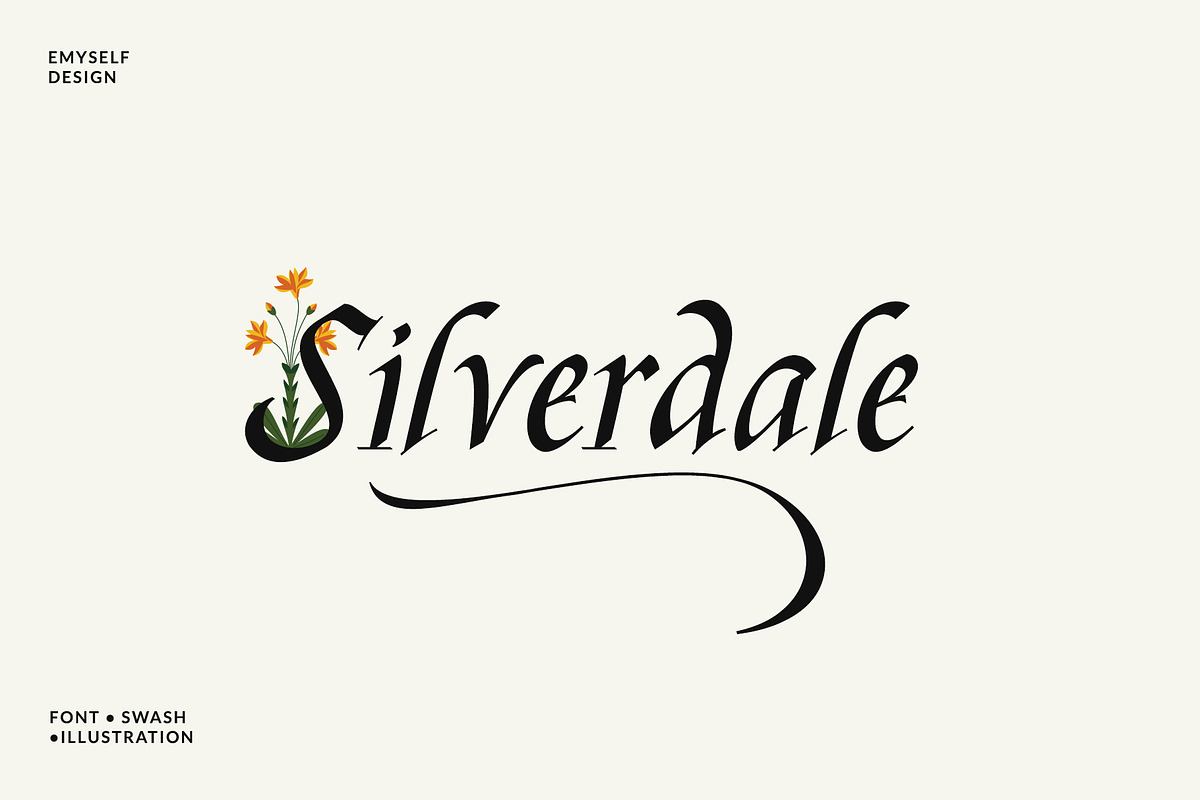
Silverdale Typeface Free Download
Silverdale Typeface Free Download is a bold, vintage-inspired serif font that blends classic character with modern versatility. Please note: you must purchase this font for commercial use, but you can test it through a free download. With its strong lines, refined curves, and timeless elegance, Silverdale is perfect for logos, headlines, packaging, apparel, and branding projects that require a touch of heritage and strength.
Whether you're working on a craft label, a whiskey brand, or a bold editorial spread, Silverdale Typeface Free Download delivers a professional and distinguished look. The font is designed to stand out while remaining highly legible, making it suitable for both print and digital designs. Fully compatible with Adobe Illustrator, Photoshop, and Canva, it fits seamlessly into any designer’s workflow. Download it today for personal use and give your creative work a bold, vintage soul with Silverdale.